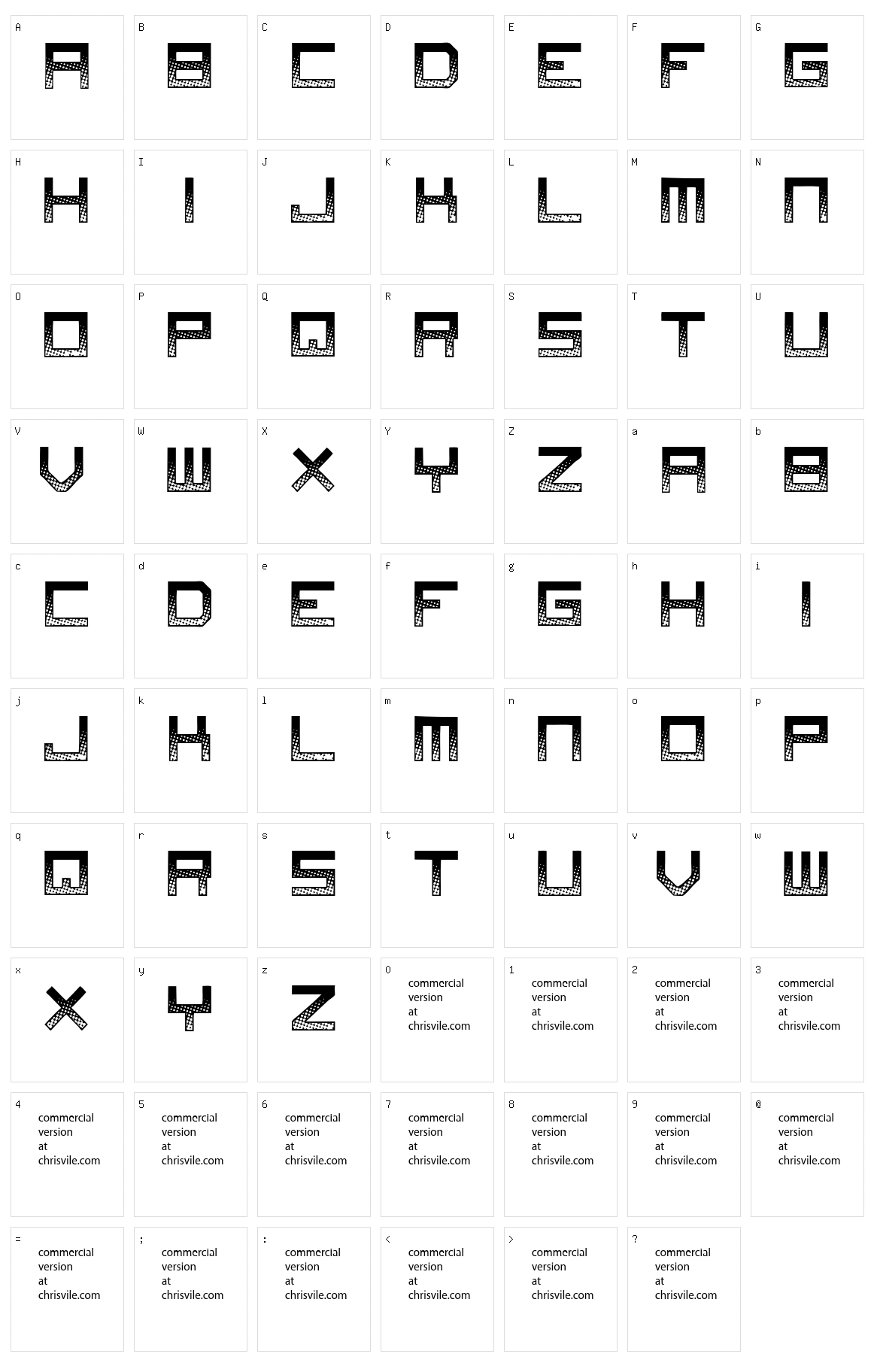
The free font Digital Disorder is carefully designed by Font Monger, showcasing a thoughtful balance of creativity and usability and falls under the Square font style. When you download the ZIP file, it contains only 255.81 KB of font files, making it lightweight and quick to download. Please review the license details below to understand permitted usage and distribution rights. If license information is not available, we recommend using this font for personal projects only or contacting the author directly for commercial usage permissions.